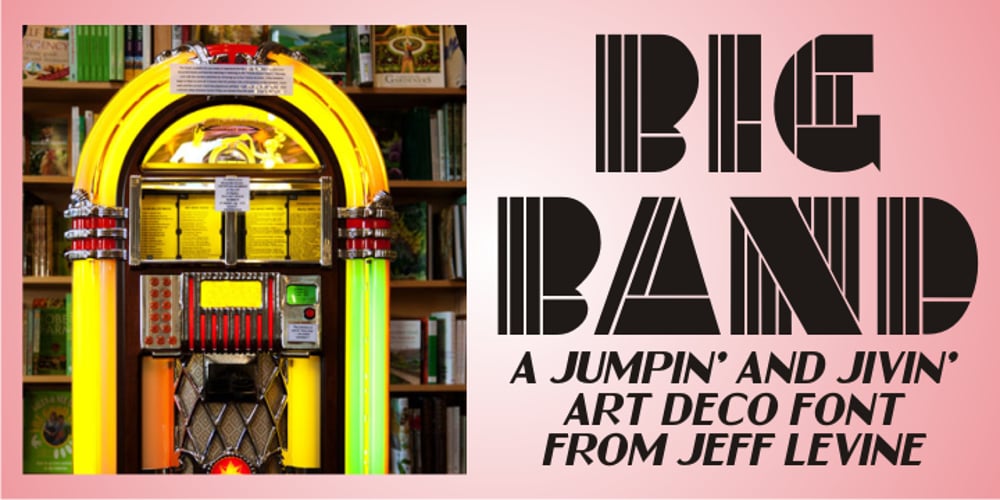
Big Band JNL Font Family was designed by Jeff Levine and published by Jeff Levine. Big Band JNL contains 1 styles and family package options. Big Band JNL is a classic Art Deco typeface in every sense of the word. Large, bold and innovative in its sectional construction, the font is based on a lettering example found in a 1941 Speedball® Lettering Pen instruction book. The basic alphabet was used for the model, with a new set of numbers and additional characters created by Jeff Levine in order to make this font fully functional in today’s digital designs.